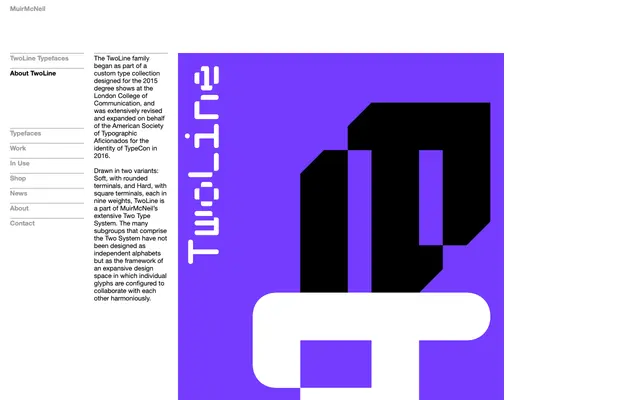
TwoLine
Muirmcneil · MuirMcNeil · 2015
A nine-weight geometric display family in two terminal variants, designed as part of MuirMcNeil's Two Type System and first produced for the London College of Communication degree shows in 2015.
Built within the framework of MuirMcNeil's Two Type System, TwoLine offers Soft and Hard variants distinguished by rounded and square terminals respectively, each running across nine weights. The system's logic treats individual glyphs not as independent forms but as components of a shared design space intended to work in concert. Commissioned originally for LCC degree shows in 2015 and later expanded for TypeCon 2016, it carries strong credentials in institutional identity work.
TwoLine is a display typeface built on a systematic geometric framework, distinguished by its two-variant structure (Soft and Hard terminals) and its role within MuirMcNeil's broader Two Type System rather than functioning as a standalone alphabet.